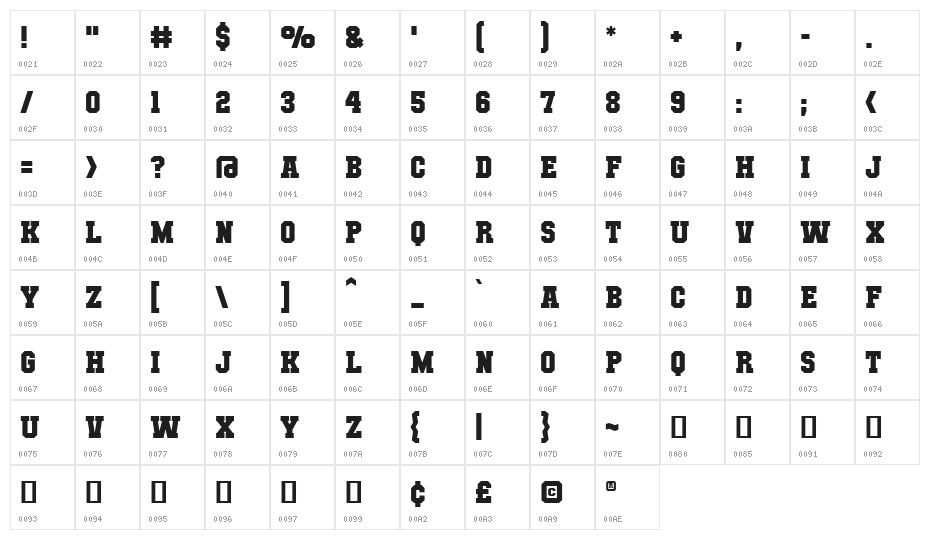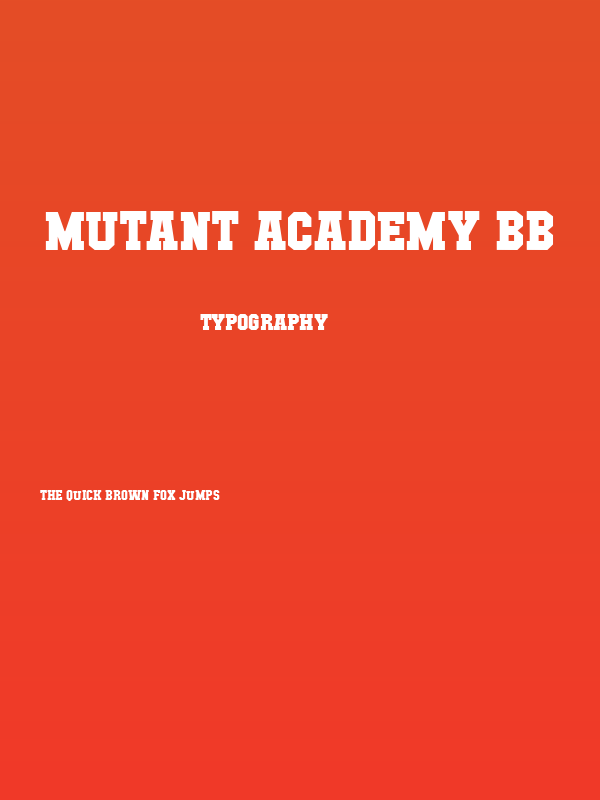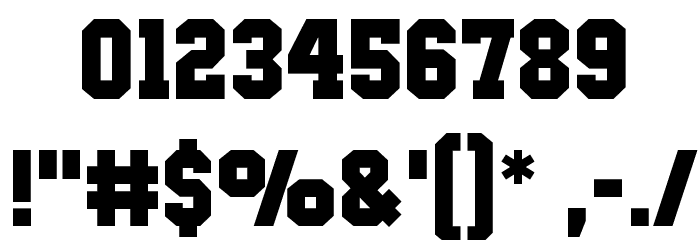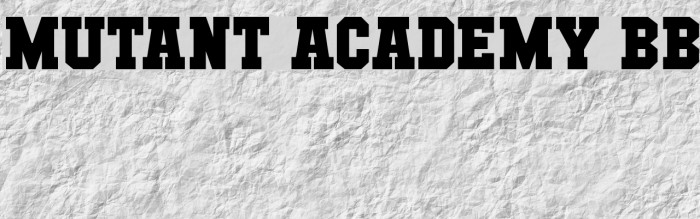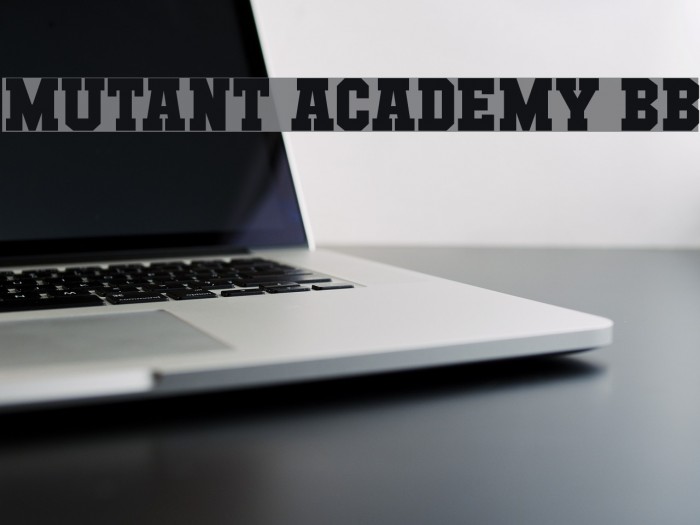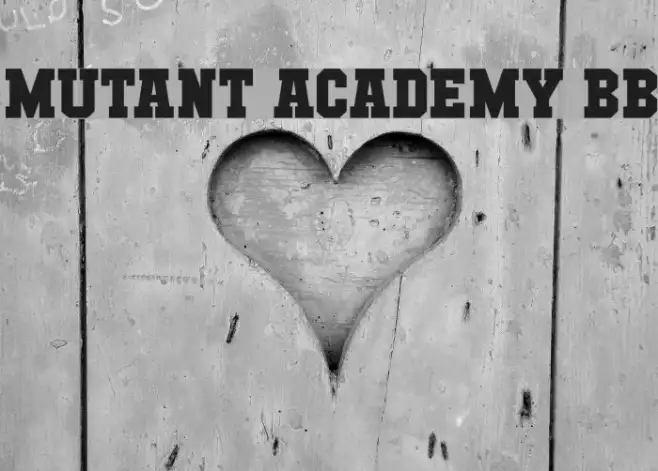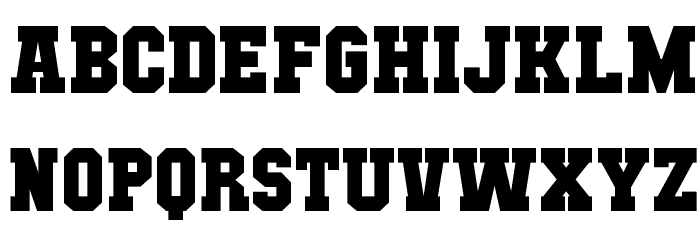
Mutant Academy BB Font
Mutant Academy BB Description
This font features a bold and impactful design with a strong presence. The characters are blocky and robust, reminiscent of athletic or collegiate styles, making it ideal for projects that require a sense of strength and authority. The uppercase letters are particularly striking, with a uniform height and width that contribute to a cohesive look. The numbers and special characters maintain the same boldness, ensuring consistency across all text elements. The font's design is straightforward yet powerful, making it suitable for headlines, posters, and branding materials where visibility and impact are crucial.
| Proposed Projects | Perfect for sports team logos, event posters, and bold branding projects. |